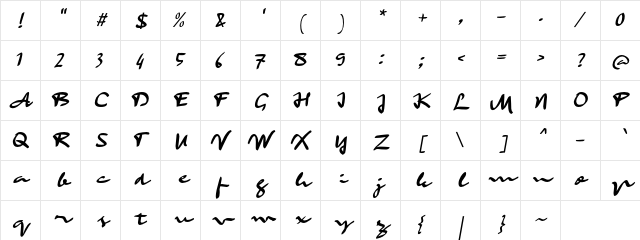
a Apotik Regular Free Font
a Apotik Regular
Designer: Wahyu Eka Prasetya
Design Context for a Apotik
a Apotik is a composed and adaptable typeface that performs quietly and consistently across a wide range of design contexts.